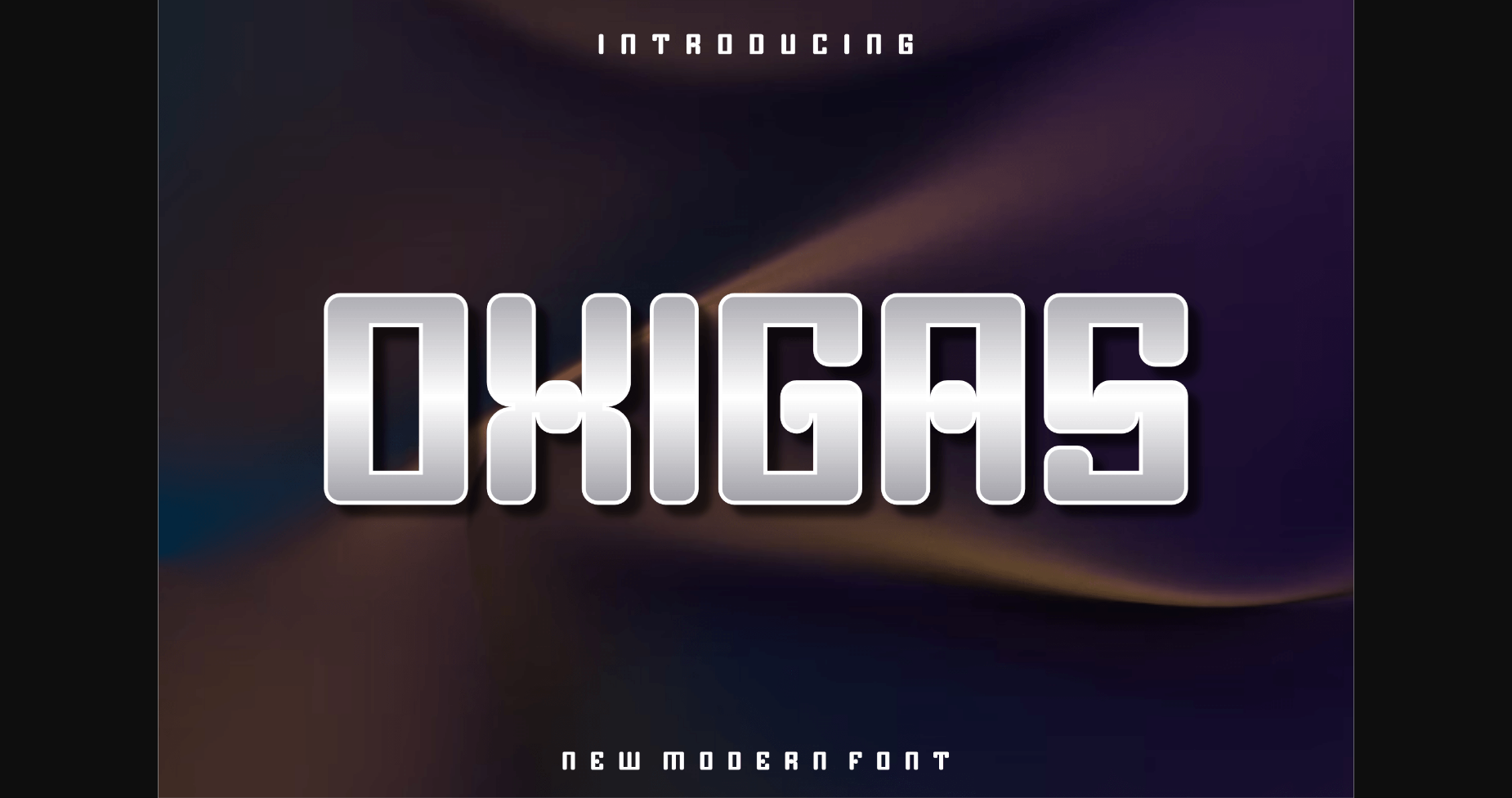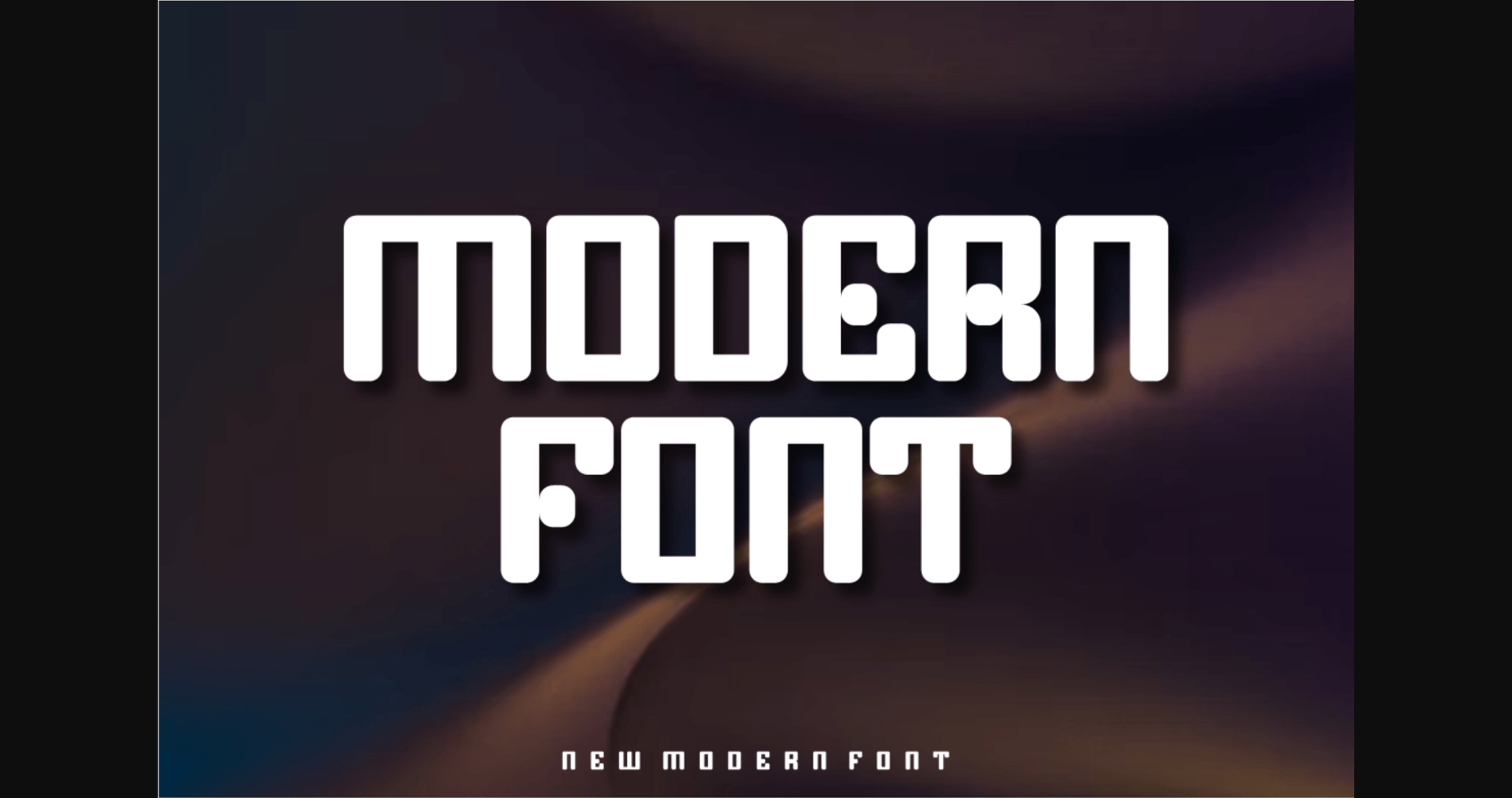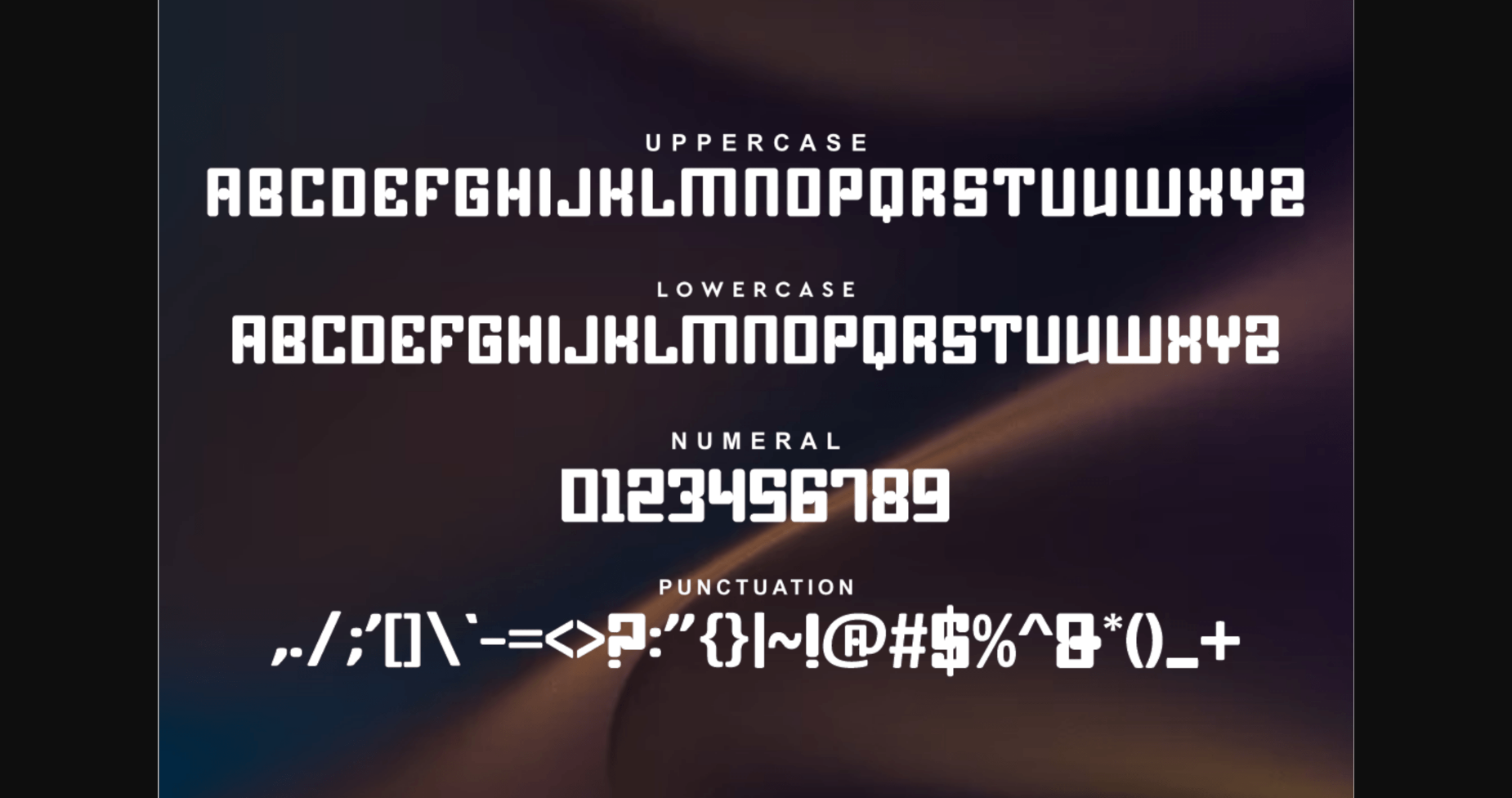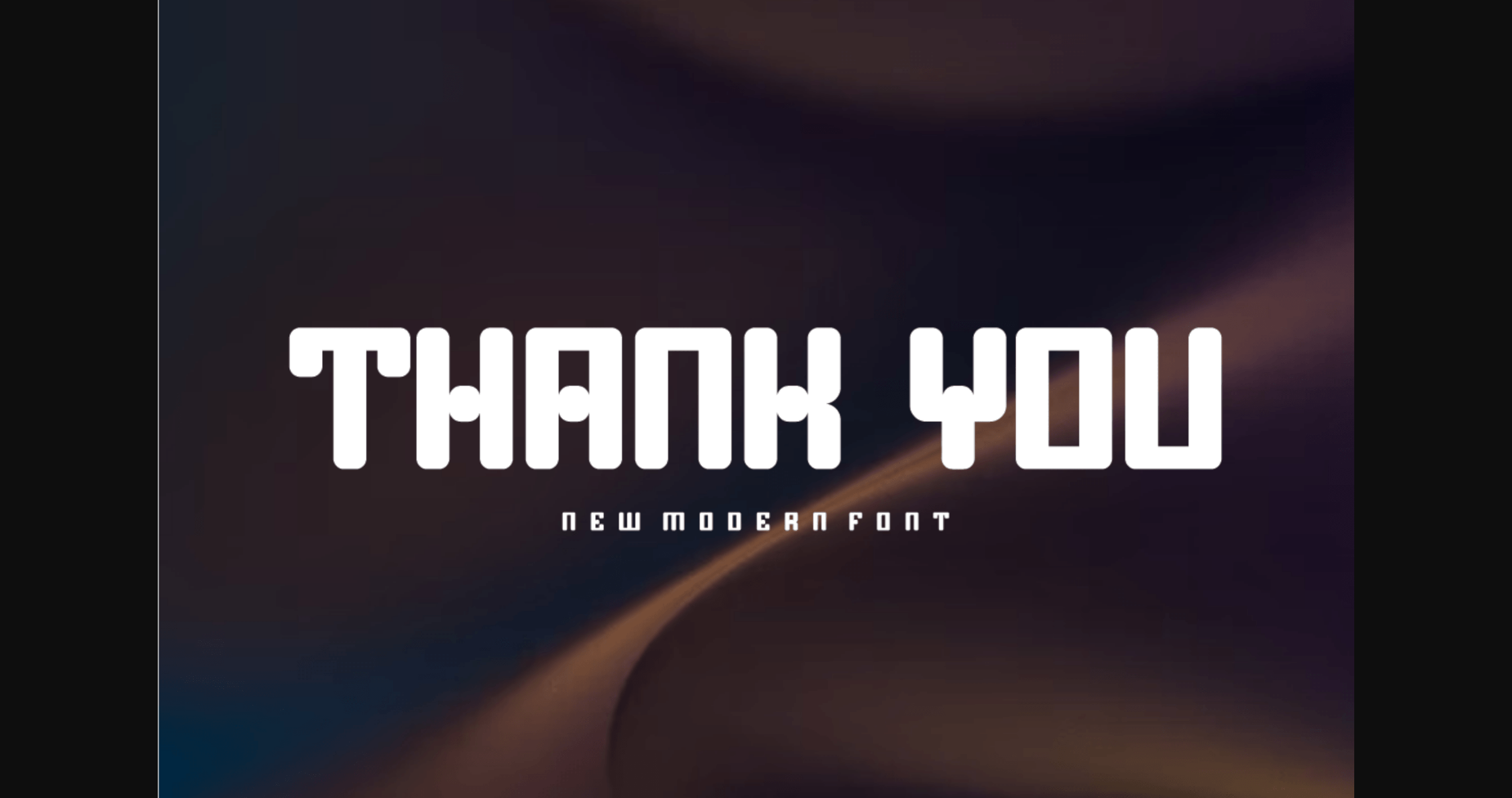
Oxigas Font
About Oxigas Font
Oxigas is a modern and futuristic sans serif font. Oxigas was crafted to give your headlines and logotype projects a stylish touch. This font reads as strong, confident, and dynamic and can add tons of character to your designs.